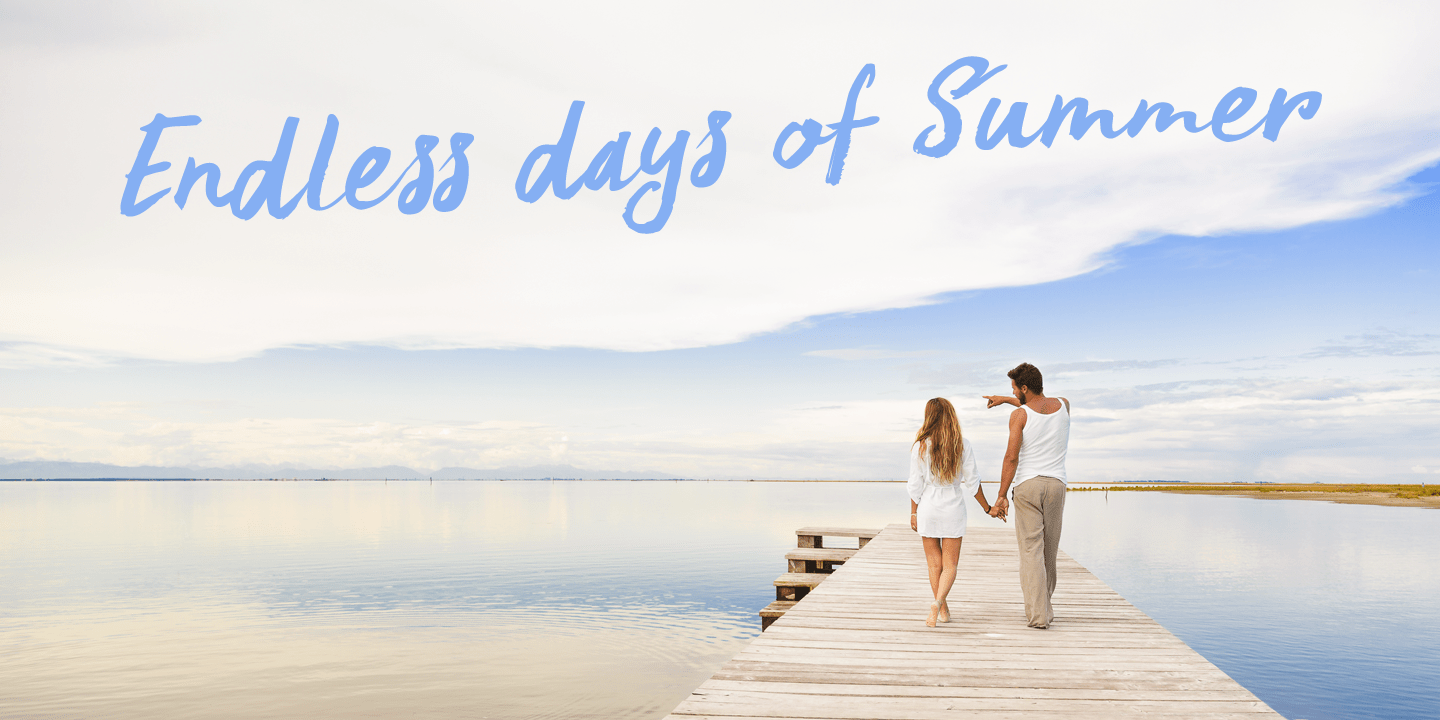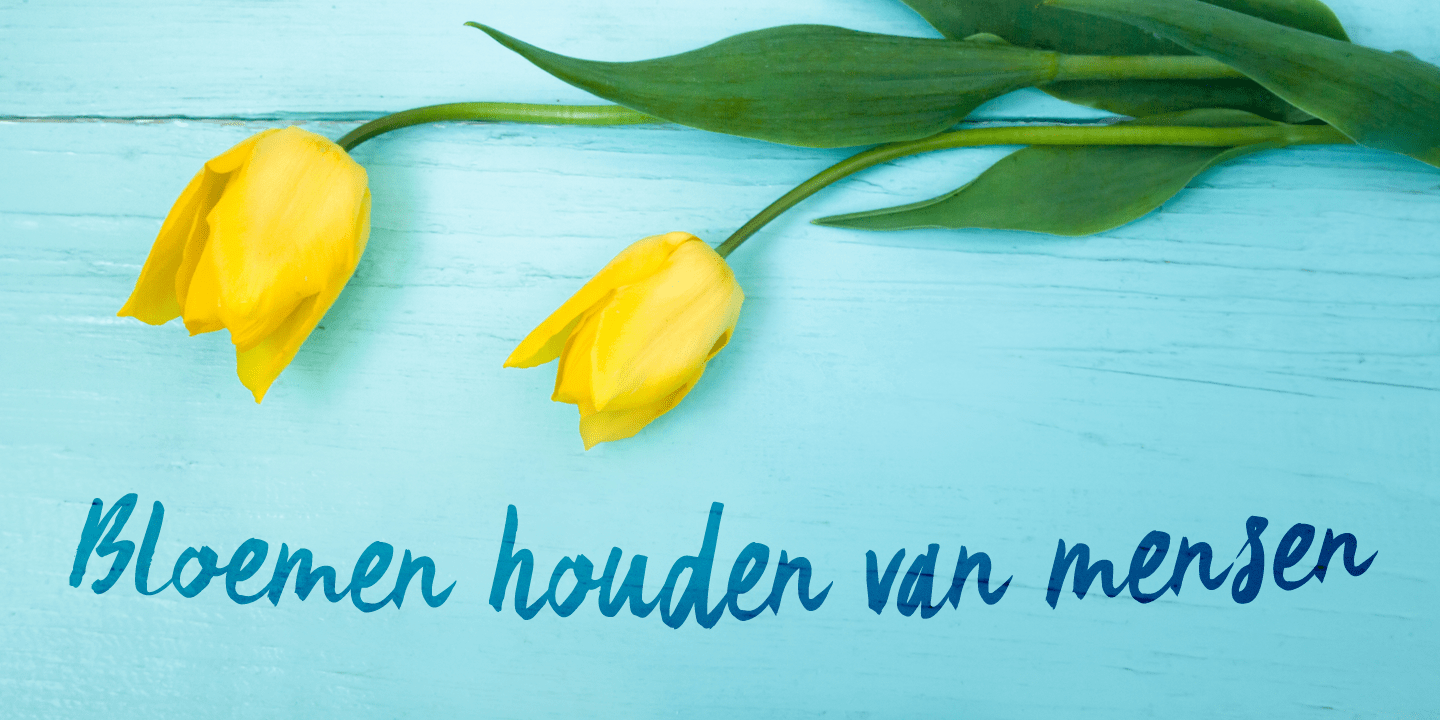
About Summer Romance
I am not a very romantic type (pun intended?), but a slightly slanted connected script always looks as if it was made for romance! Summer Romance is a beautiful connected script, made entirely by hand using a Japanse calligraphy brush-pen. It looks good…